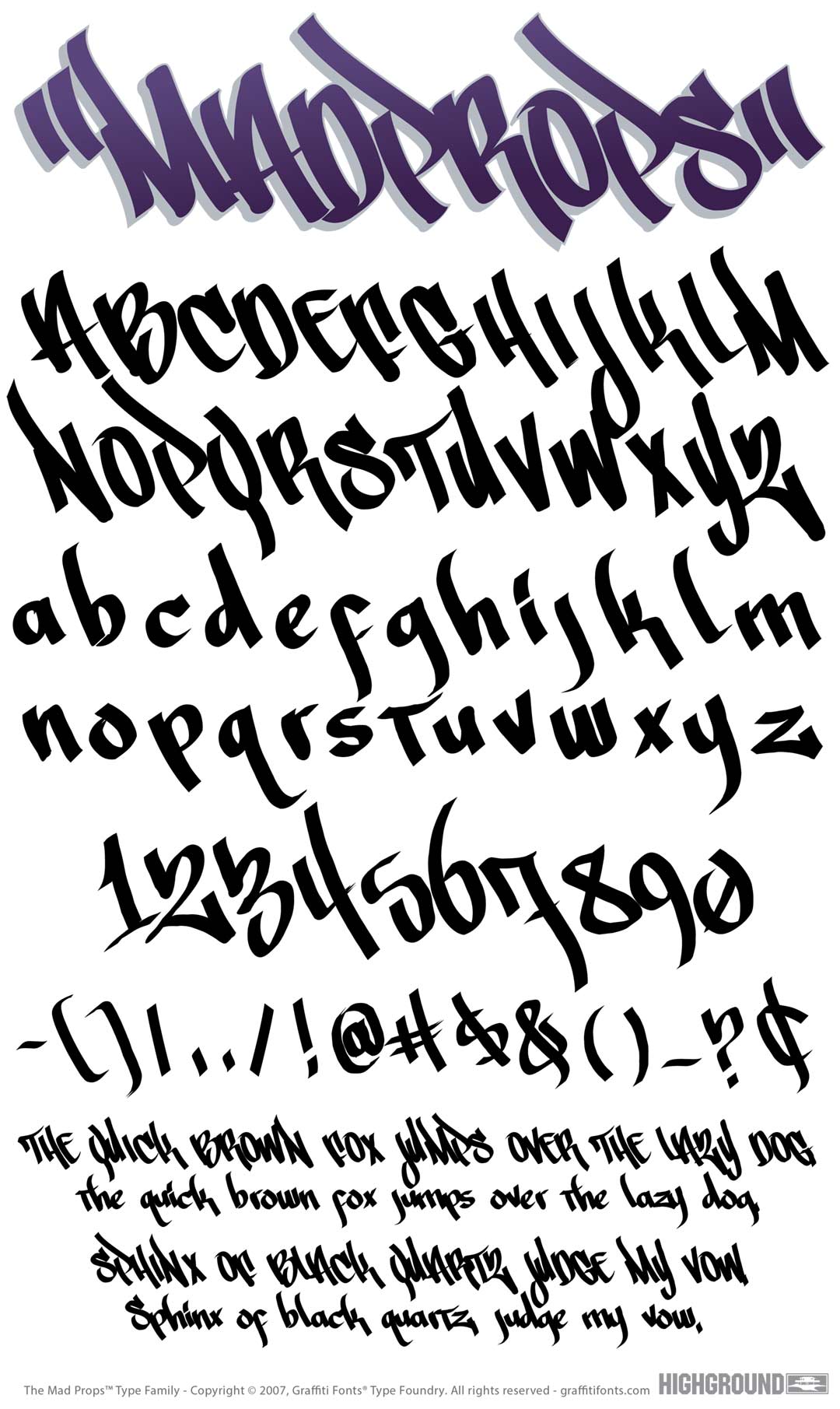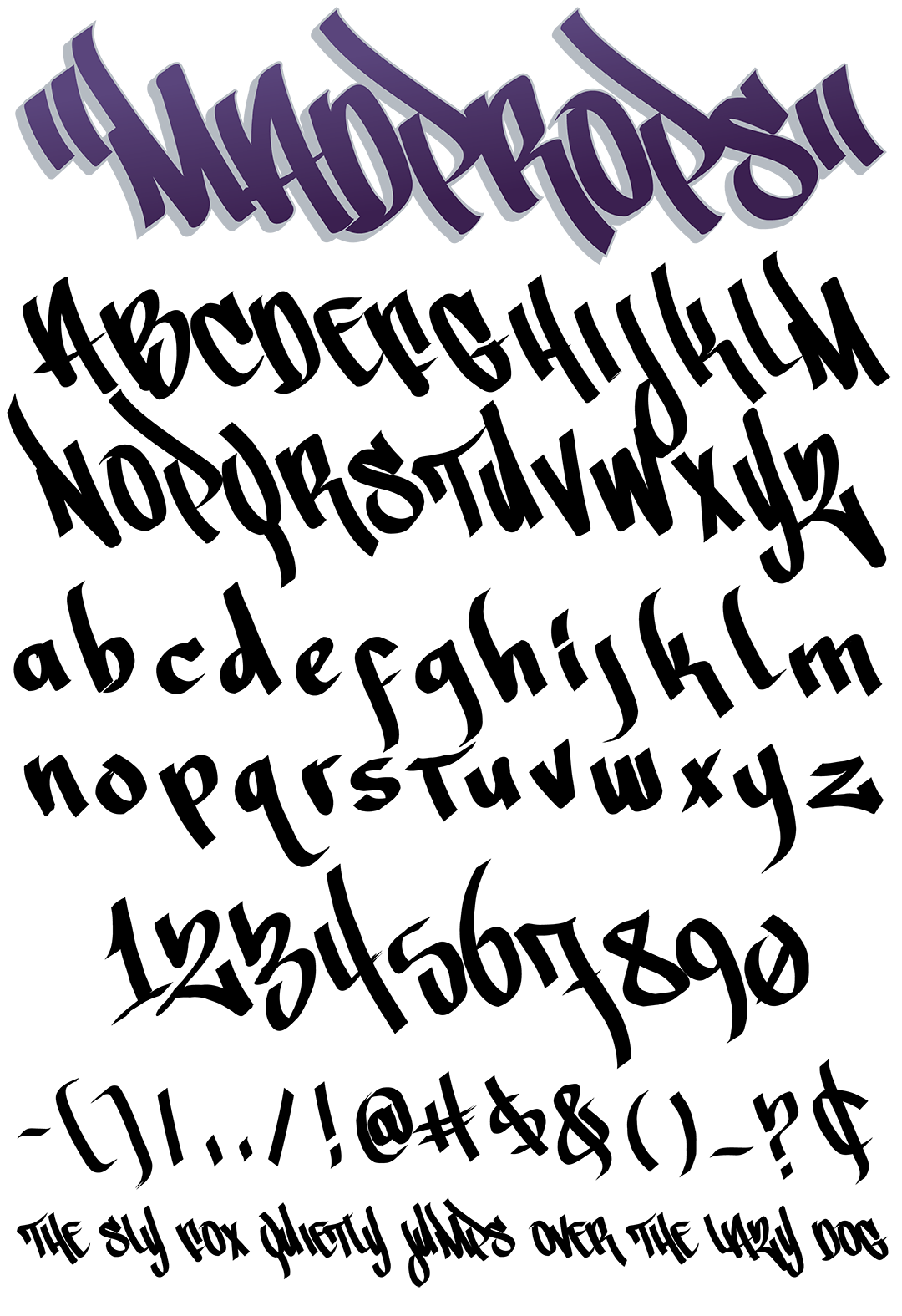
Mad Props Font
Mad Props Title Image
Mad Props Graffiti Alphabet
Mad Props Graffiti Font Family
This classic tag style is inspired by 90s era, east coast handstyles. Mad Props features 86 characters presented in a crisp chisel tip style. This typeface was created to be clean & legible while still communicating a definite graffiti look. Leaned back & augmented with flourishes, underlines etc. Mad Props can be used effectively with bold outlines & other effects.